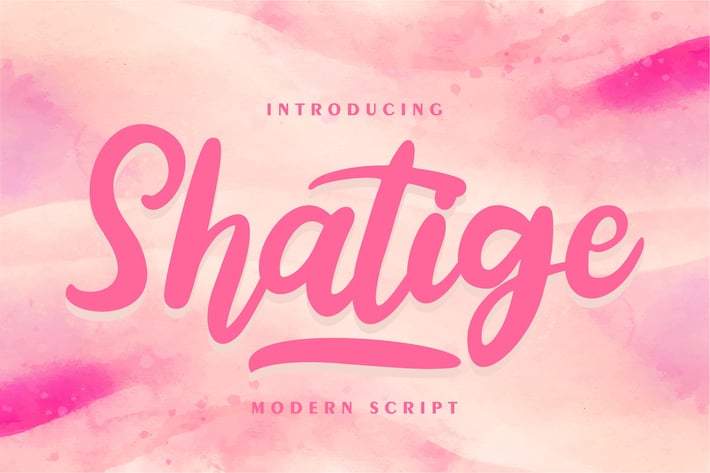
Shatige | Moden Script Font
Shatige | Moden Script Font with a calligraphy style, So beautiful on invitation like greeting cards, branding materials, business cards, quotes, posters, and more!